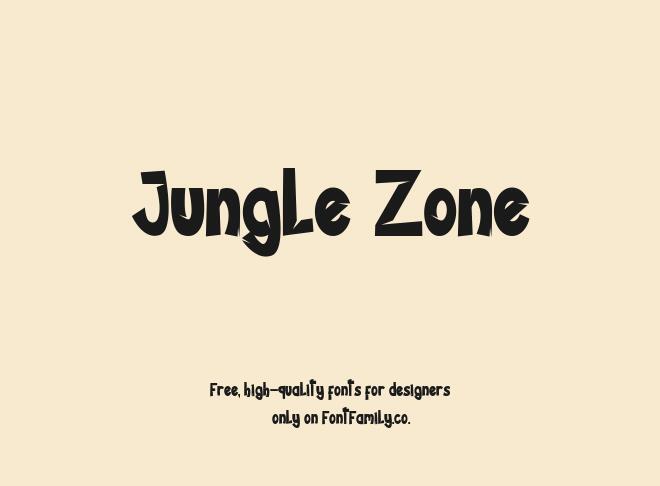
Jungle Zone Font
The Jungle Zone Font is a playful and decorative typeface, exhibiting an adventurous spirit. It perfectly captures the raw, untamed beauty of the wilderness, making it an ideal choice for nature-themed designs, children's book covers, and wildlife conservation campaigns. The Jungle Zone Font stands out with its bold, thick strokes and irregular shapes, akin to the unpredictability of the jungle. Its unique design is a fresh deviation from the typical, rigid fonts, offering a more lively and dynamic approach. This font is free for personal use and its distinct style guarantees to add a touch of wilderness to your designs, making them more engaging and visually appealing. With Jungle Zone Font, your designs will never be mundane or ordinary, but rather a thrilling exploration into the wild.